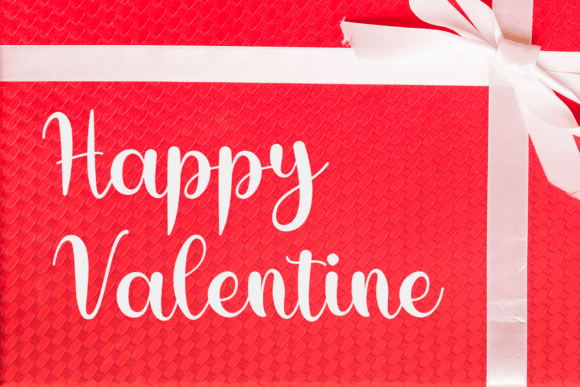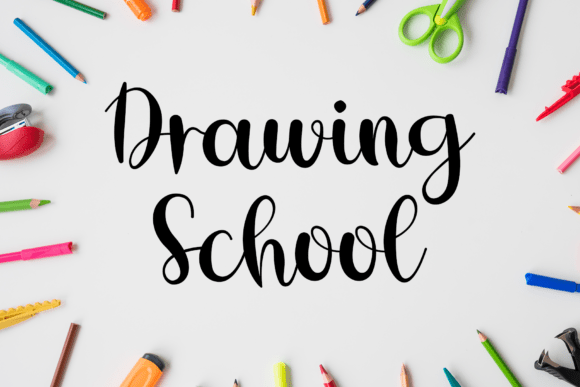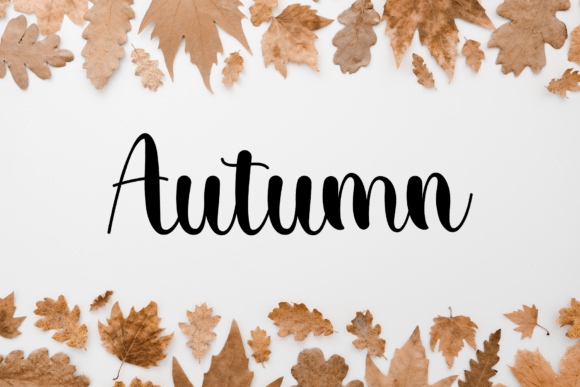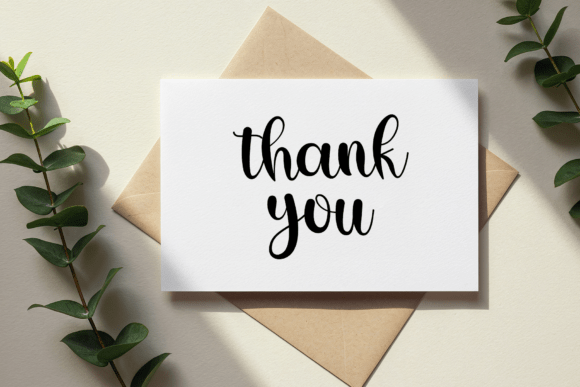
Introducing California Font: The Ultimate Whimsical Handwritten Font
Are you tired of using the same old fonts for your design projects? Look no further! We’re excited to introduce “California” – a delightful, whimsical handwritten font that’s sure to add a touch of playfulness and charm to your creations. With its adorable and playful character, California Font is guaranteed to leave a charming and endearing impression with every look.
The Story Behind California Font
California Font is a carefully crafted handwritten font that’s inspired by the carefree and laid-back vibe of the Golden State. Its creator, a talented typographer, aimed to capture the essence of California’s sunny disposition and translate it into a font that’s both fun and functional. The result is a font that’s perfect for designers, crafters, and anyone looking to add a dash of whimsy to their work.
What Makes California Font So Special?
So, what sets California Font apart from other fonts out there? Here are just a few of its standout features:
- Whimsical and Playful: California Font is a truly unique and eye-catching font that’s sure to turn heads. Its playful character makes it perfect for designs that require a touch of personality and flair.
- Handwritten with Love: This font is carefully crafted with love and attention to detail, giving it a warm and endearing feel that’s hard to resist.
- Versatile: California Font is incredibly versatile and can be used for a wide range of design projects, from branding and packaging to invitations and social media graphics.
- Easy to Read: Despite its playful nature, California Font is surprisingly easy to read, making it perfect for designs that require a clear and concise message.
How to Use California Font in Your Designs
California Font is incredibly easy to use and can be incorporated into your designs in a variety of ways. Here are a few ideas to get you started:
- Branding and Packaging: Use California Font to add a touch of personality to your brand’s packaging and marketing materials.
- Invitations and Stationery: Create adorable invitations, greeting cards, and stationery that are sure to delight your friends and family.
- Social Media Graphics: Use California Font to create eye-catching social media graphics that are sure to stand out in a crowded feed.
- Web Design: Add a touch of whimsy to your website’s design with California Font, perfect for headings, titles, and other display text.
Tips and Tricks for Getting the Most Out of California Font
Here are a few tips and tricks for getting the most out of California Font:
- Experiment with Colors: California Font looks amazing in a variety of colors, so don’t be afraid to experiment and find the perfect hue for your design.
- Mix and Match: Combine California Font with other fonts to create a unique and eye-catching typography combination.
- Play with Size: California Font looks great in a variety of sizes, from large headings to smaller body text.
| Font Name | California Font |
| Author | Fania Studio |